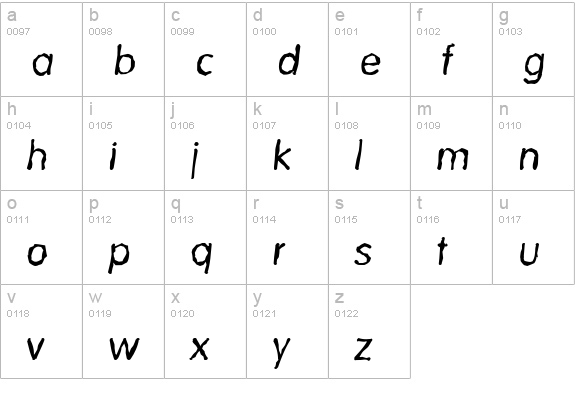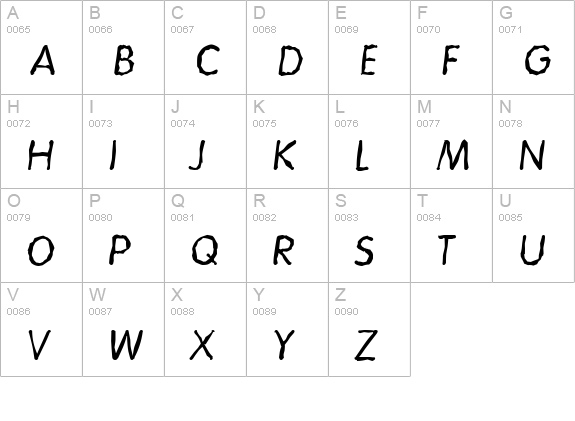
VolkswagenRandom-Italic Font Details
VolkswagenRandom-Italic is a distinctive, italic variant in the VolkswagenRandom typeface family \xE2\x80\x94 well suited to design and typography projects.
Introducing VolkswagenRandom-Italic font, a dynamic and versatile typeface that exudes modernity and sophistication. Its sleek design and unique italic style make it perfect for adding a touch of elegance to any project, whether it be branding, advertising, or editorial design. The VolkswagenRandom-Italic font features a balance of sharp angles and smooth curves, creating a visually striking aesthetic that commands attention. This exquisite font is now available for free download at FontsMarket.com, making it accessible to all designers and creatives looking to elevate their work with a touch of class. Embrace the endless possibilities of VolkswagenRandom-Italic font and unleash your creativity today!